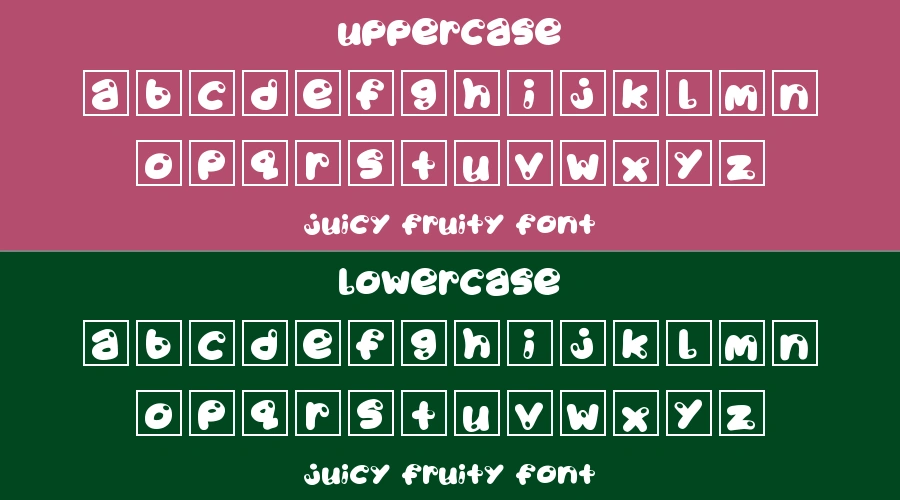
About Juicy Fruity Font
Juicy Fruity Font embodies typographic excellence through its masterful combination of high x-height and quality assurance. Created for advertising campaigns, this typeface delivers exceptional reliability and enduring appeal across all applications. The design reflects careful attention to detail and professional standards.
Advanced capabilities include distinctive circular bowls and versatile standard ligatures, giving designers creative control. When used in specification sheets, Juicy Fruity Font exhibits remarkable reproduction fidelity. The harmonious balance between contrast level and technical authority sets this typeface apart.